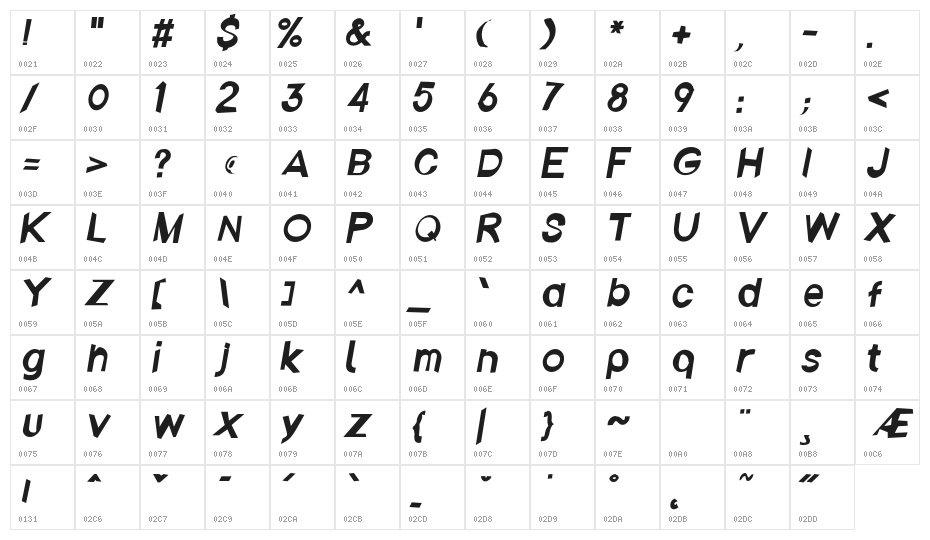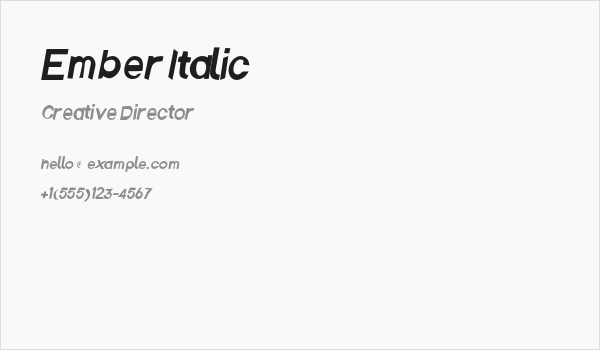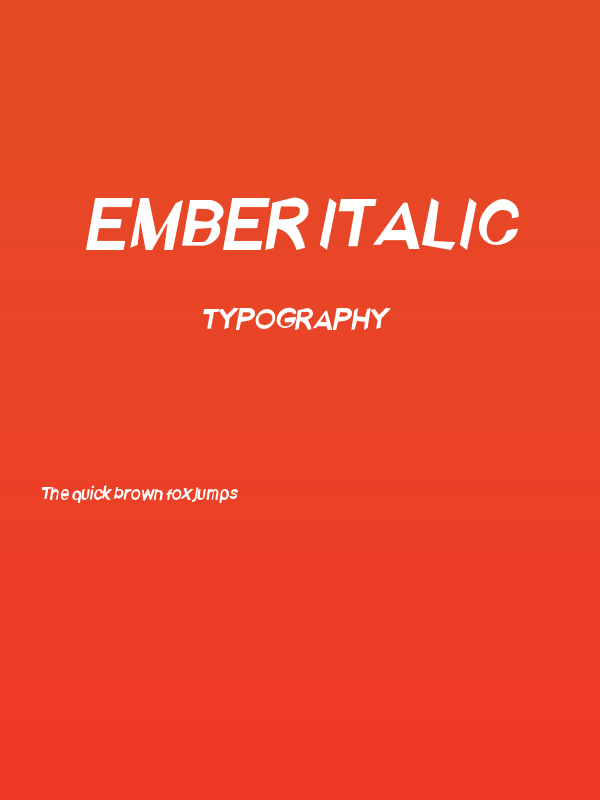
Ember Italic Font
Ember Italic Description
This font features a dynamic and modern italic style with a distinct forward slant, giving it a sense of movement and energy. The characters are bold and robust, with a consistent stroke width that maintains readability while adding a touch of flair. The uppercase letters are slightly taller than the lowercase, providing a balanced and cohesive look. The numerals are clear and well-defined, making them suitable for various applications. Special characters are included, maintaining the font's overall aesthetic. This font is versatile, suitable for both digital and print media.
| Proposed Projects | Ideal for branding, advertising, posters, and headlines where a modern and energetic feel is desired. |